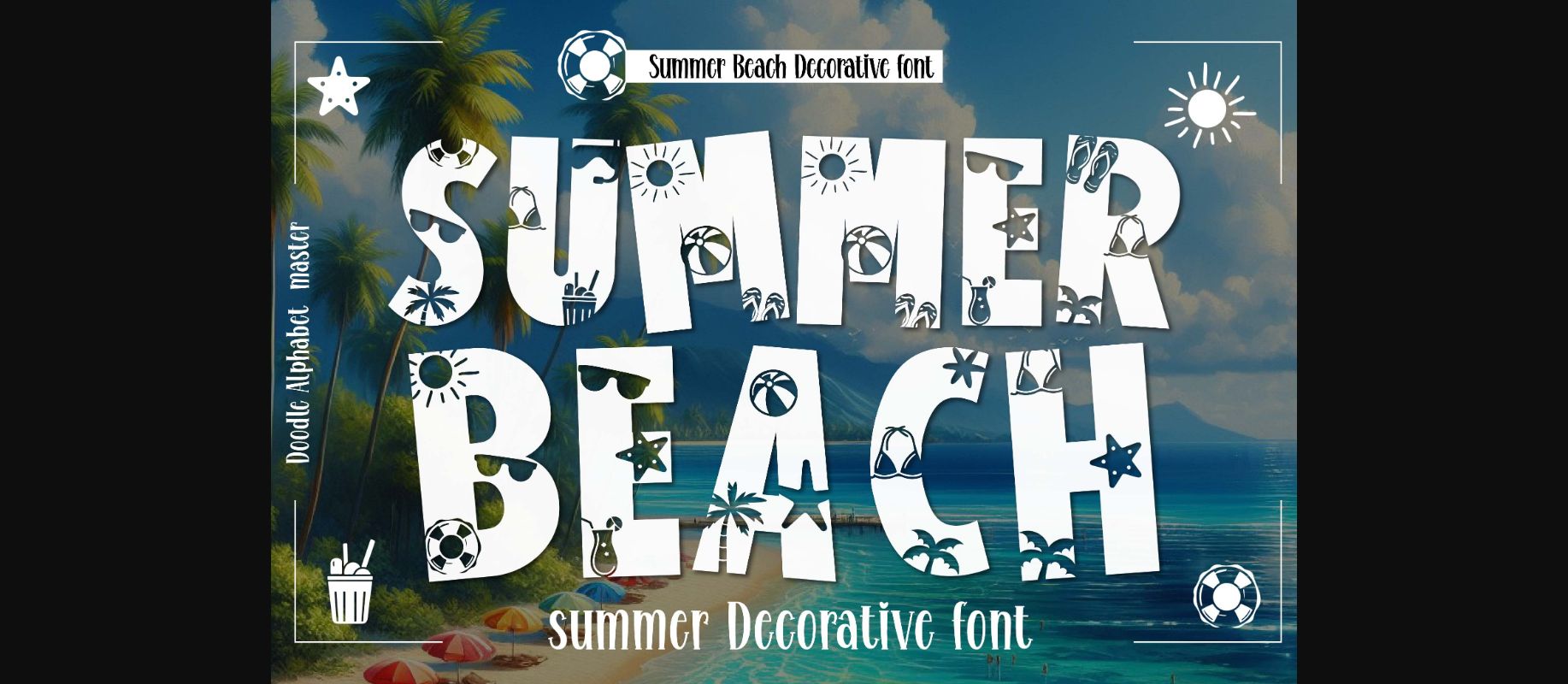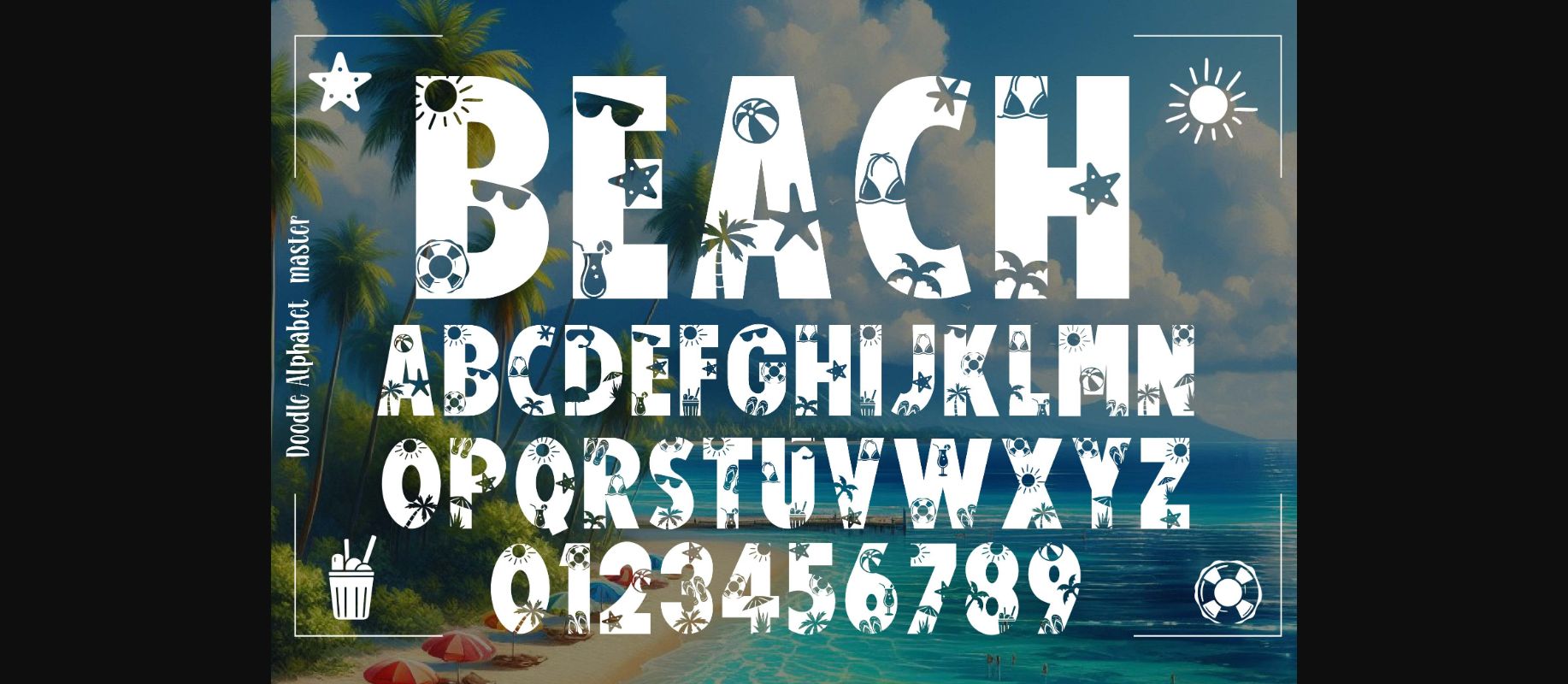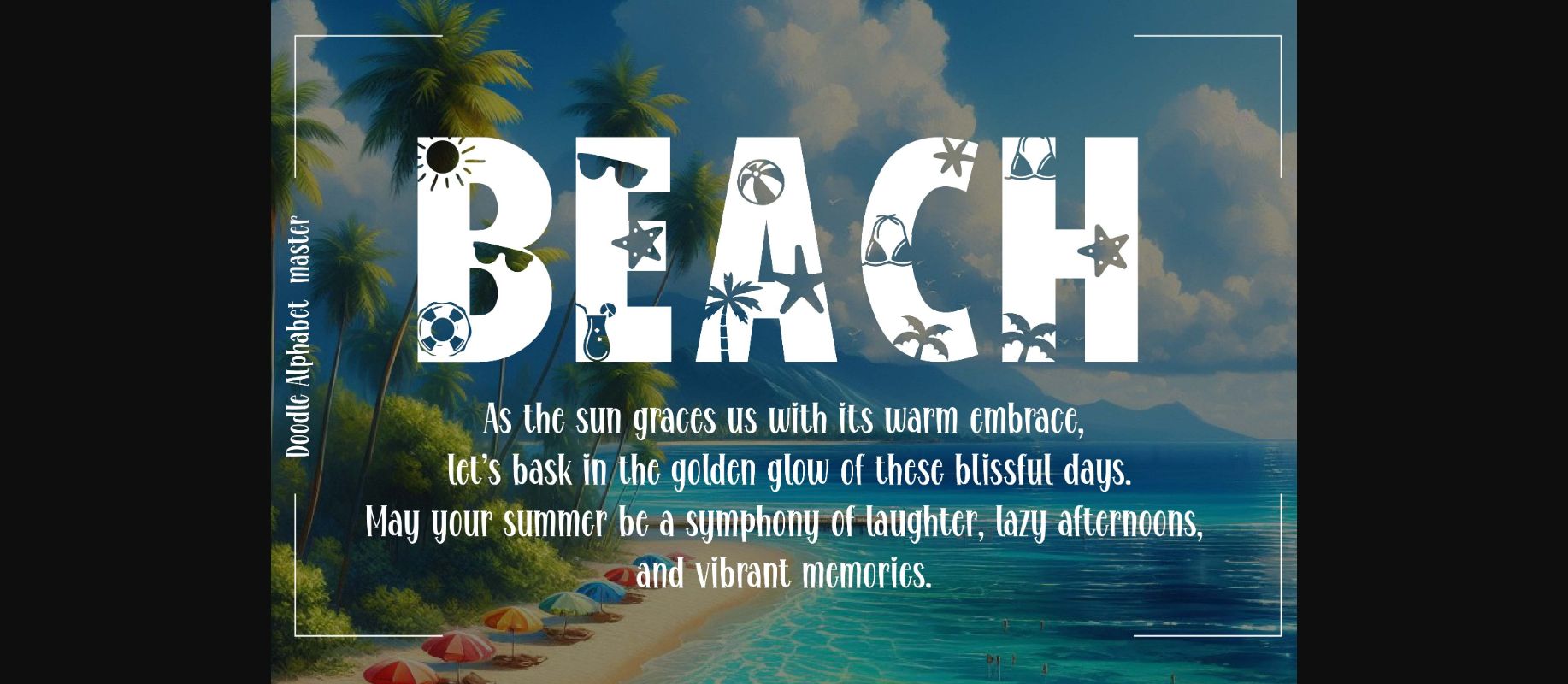
Summer Beach Font
About Summer Beach Font
Meet Summer Beach – a spirited, radiant font designed to infuse your projects with an inviting sense of delight. This font resonates with the heartwarming allure of serene summer days, memorable vacations, or cheerful festivities. Transform your custom t-shirt designs, attention-grabbing posters, or any craft in need of an exuberant charge, with the captivating charm of Summer Beach.